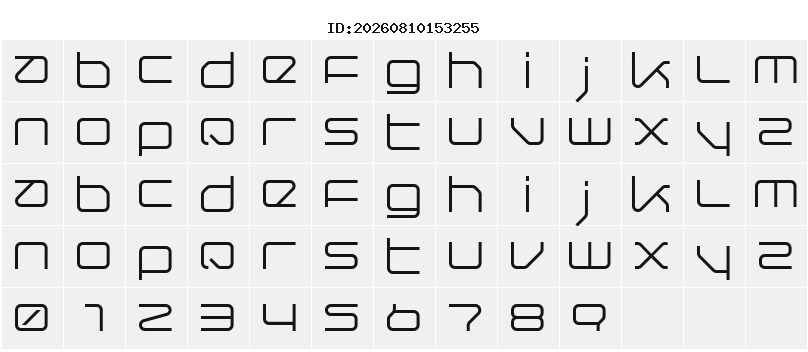
• Font Name: Querround
• Font ID: Altsys Metamorphosis:Querround Regular
• Full Font Name: Querround Regular
• Version: Altsys Metamorphosis:28.11.2004
• PostScript Name: Querround
• Character Count: 106
About Querround.ttf
Querround.ttf is a modern, elegant sans-serif font designed for ultimate readability and visual harmony. Perfect for branding, headlines, web design, and print materials.